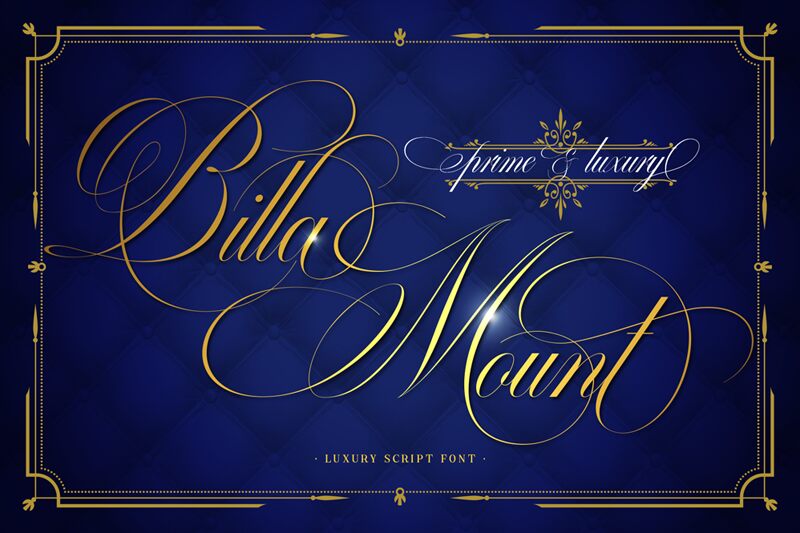
Billa Mount, designed by Alit Design, is a stunning calligraphy font that boasts an extra-light weight. Its fluid, elegant strokes exude grace and sophistication. This font is perfect for invitations, wedding stationery, and other formal projects where a touch of refinement is desired. Additionally, Billa Mount's exquisite detailing makes it ideal for branding materials such as logos and business cards. Its unique character set also makes it suitable for artistic endeavors like poetry books and inspirational quotes. Embrace the beauty of calligraphy with Billa Mount - the perfect choice for your next project!
Billa Mount